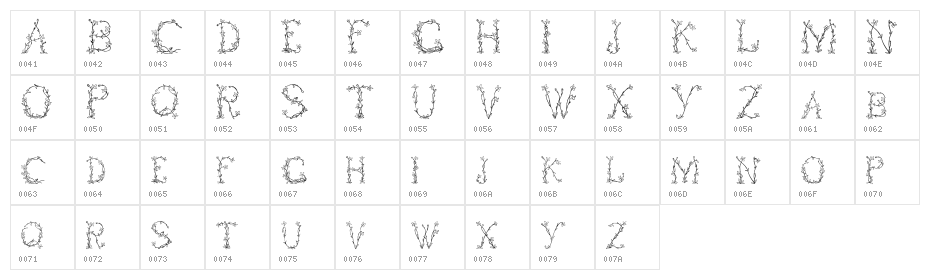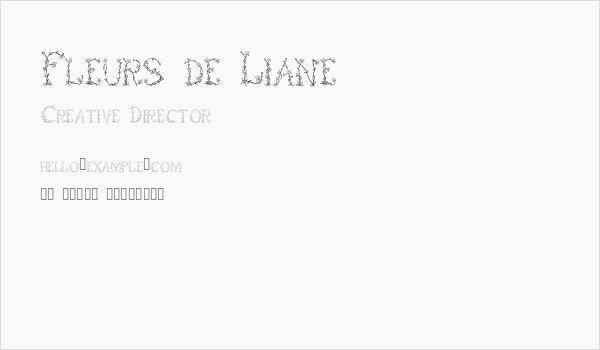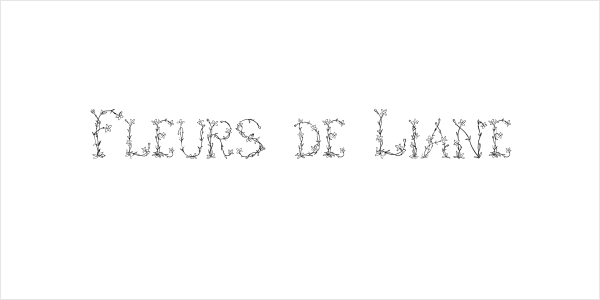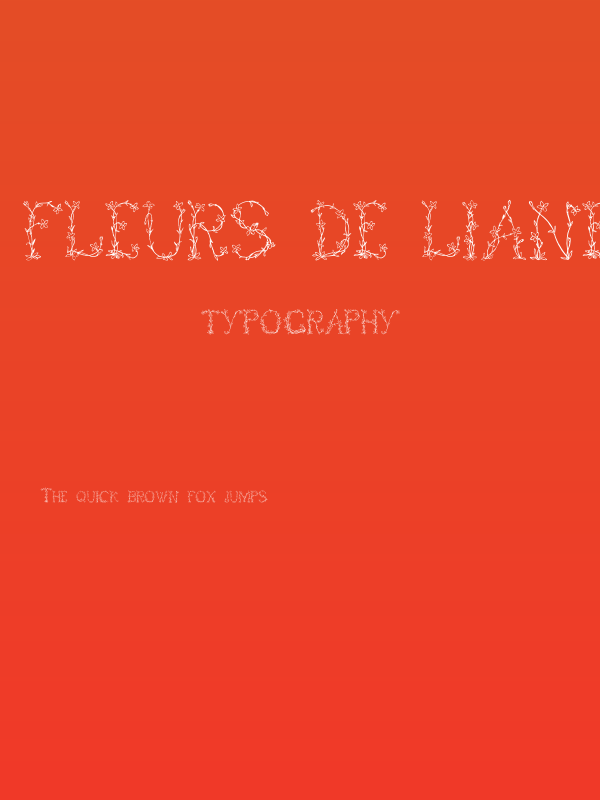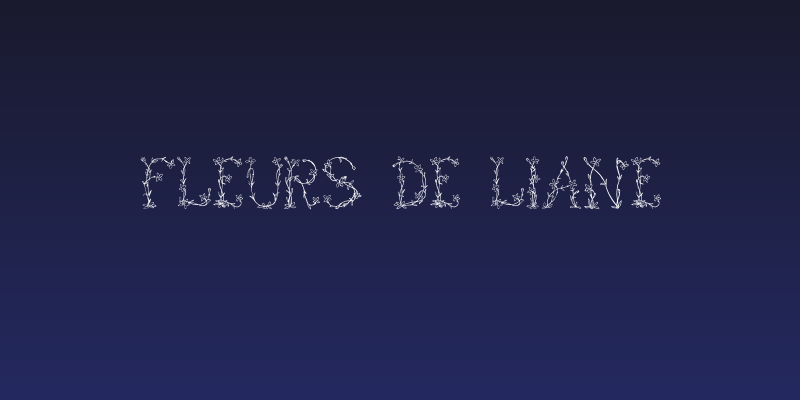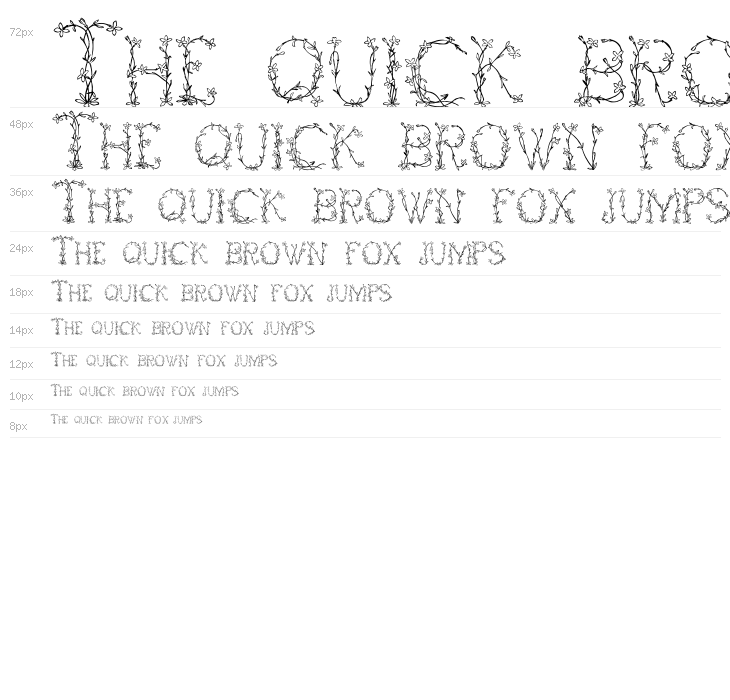
Fleurs de Liane Font
Fleurs de Liane Description
This font features an intricate and decorative style, with each letter formed by intertwining vines and floral elements. The design is highly detailed, giving the impression of letters growing organically from nature. The uppercase and lowercase letters maintain a consistent theme, with delicate curves and flourishes that enhance the natural aesthetic. The font does not include numbers or standard special characters, focusing instead on its unique botanical design. This font is ideal for projects that require a touch of elegance and nature-inspired beauty.
| Proposed Projects | Ideal for wedding invitations, botanical-themed branding, garden event posters, and nature-inspired art projects. |